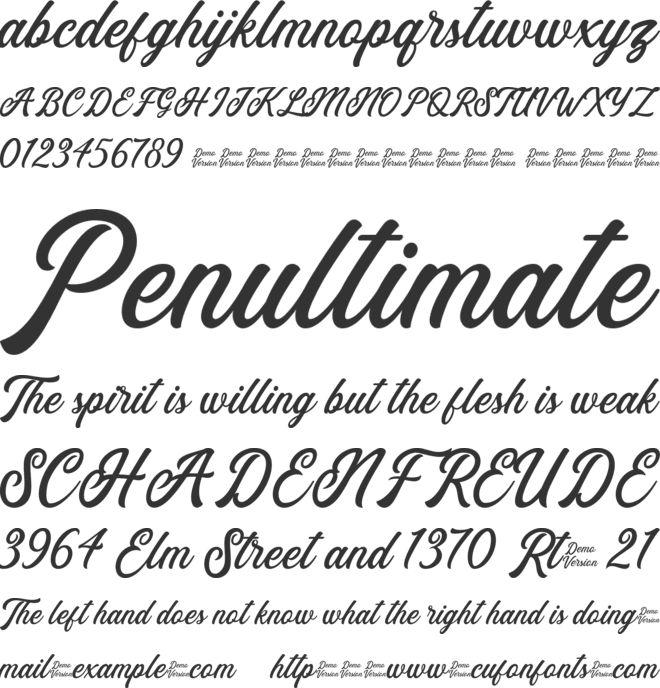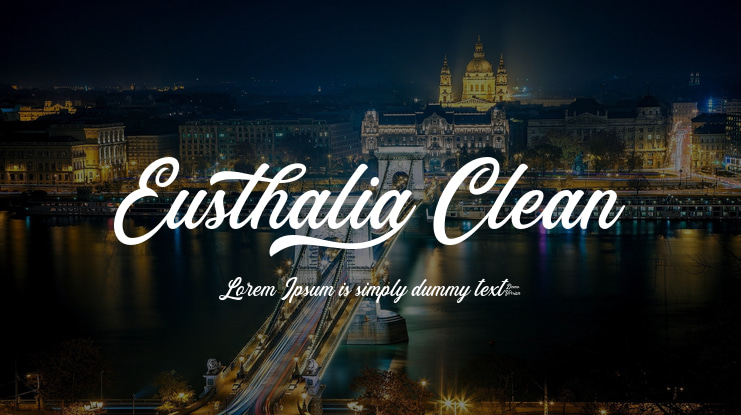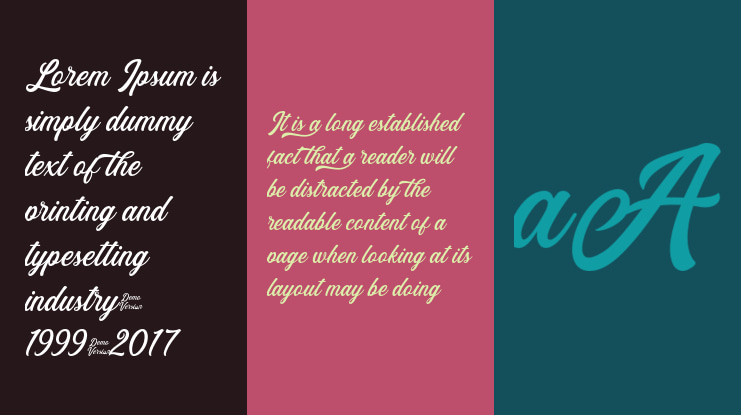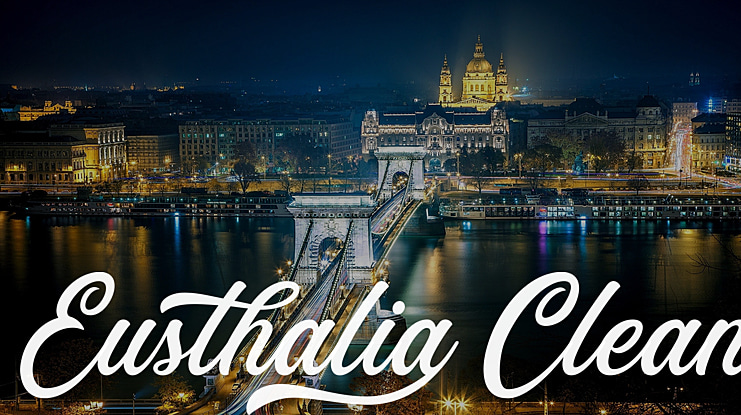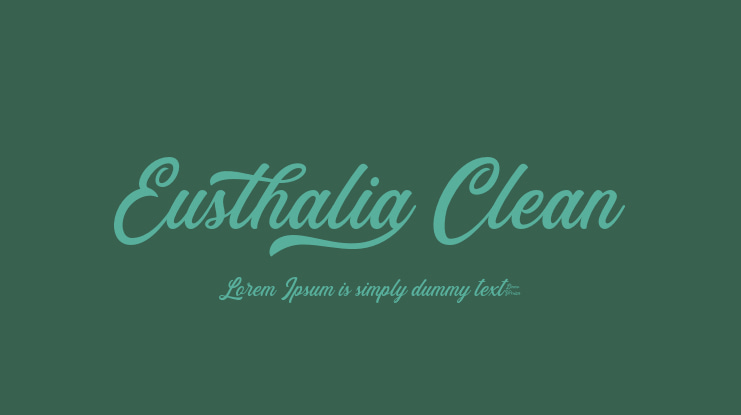
Eusthalia Clean Font
p.s.: The full version contains Stamped Style, lots of Stylistic Sets, Ligatures, Contextual Alternates and Multilingual that make Eusthalia Typeface more vintage and awesome.
Eusthalia Clean font preview